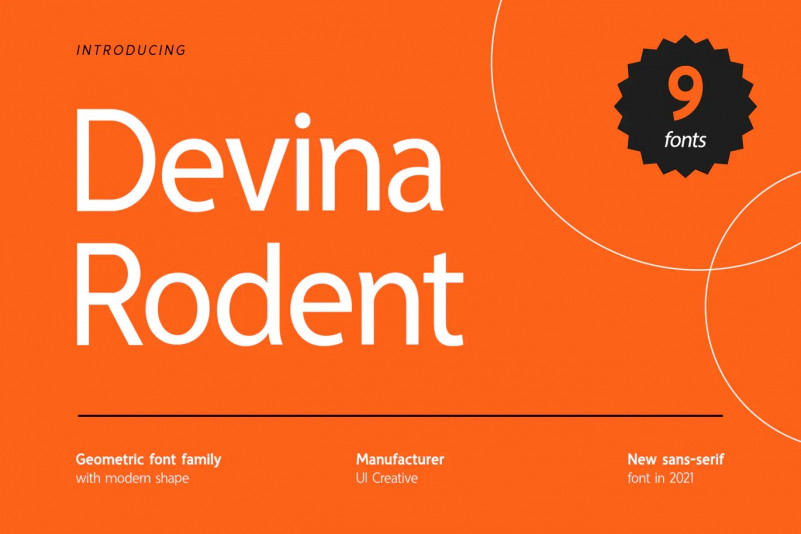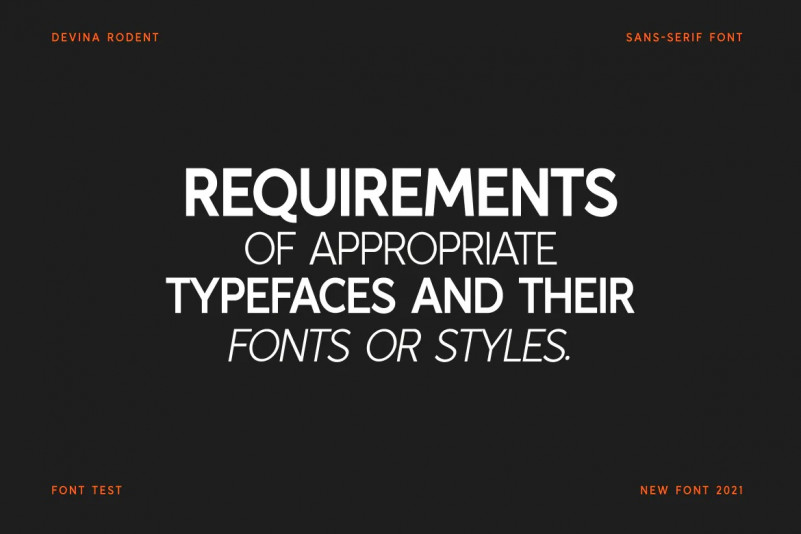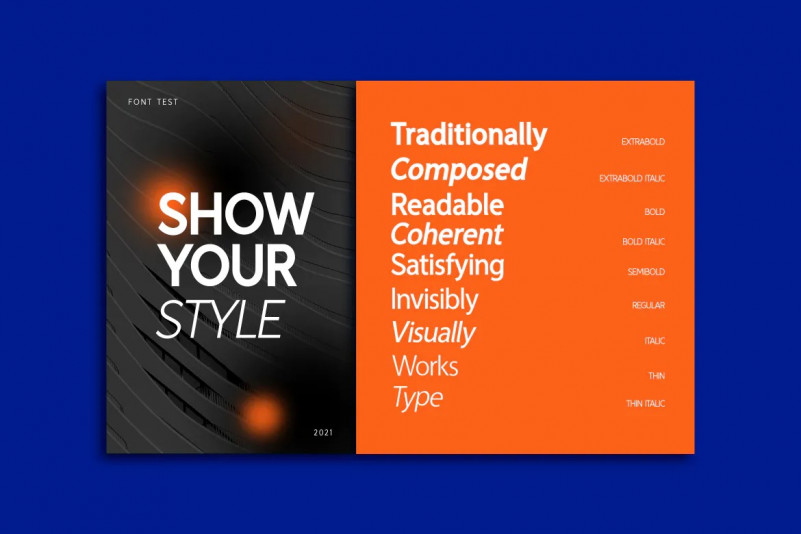
Devina Rodent Font
Introducing of our new product the name is Devina Rodent Sans Serif Font Family comes with 9 different weights. Modern Sans Serif font that feels beautiful classy, elegant, and modern .This font is perfect suited for a wide variety of projects, as to signature, stationery, logo, wedding, typography quotes, magazine or book cover, website header, clothing, branding, packaging design and more. Also for fashion related branding or editorial design and displays both masculine and feminine qualities.